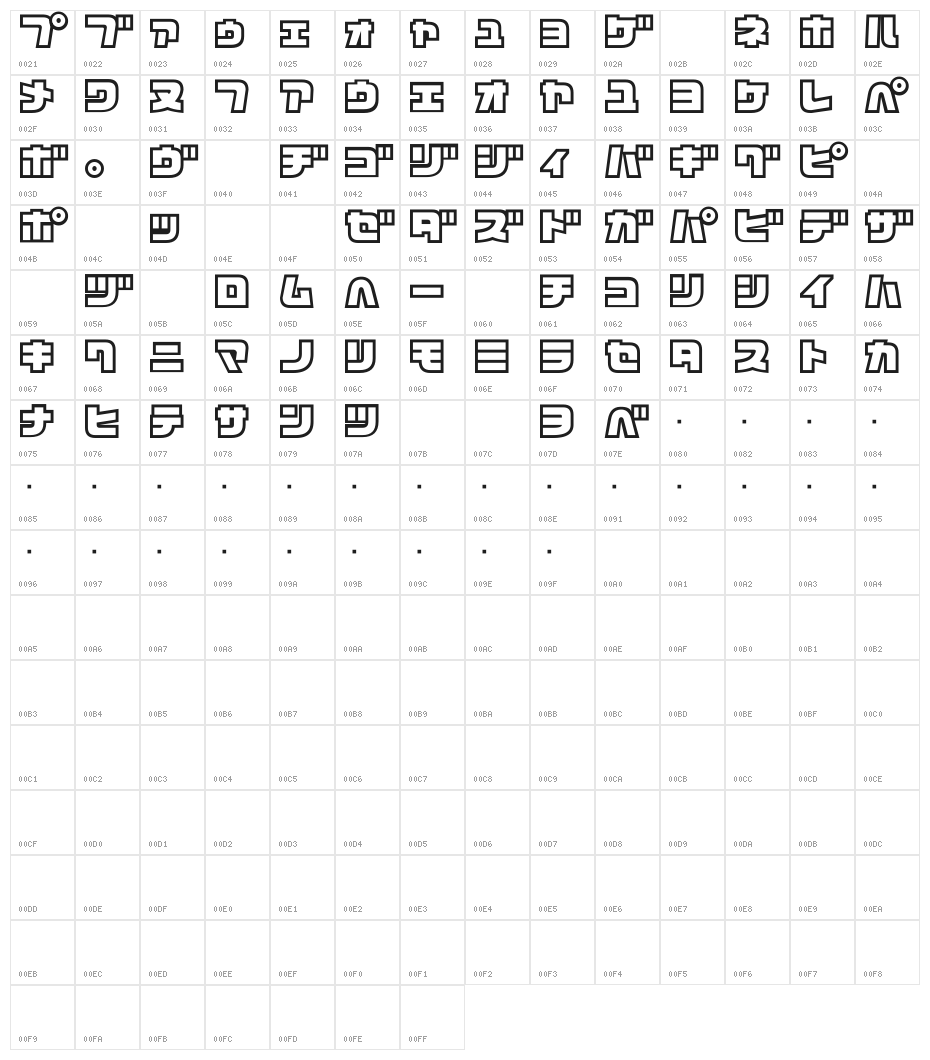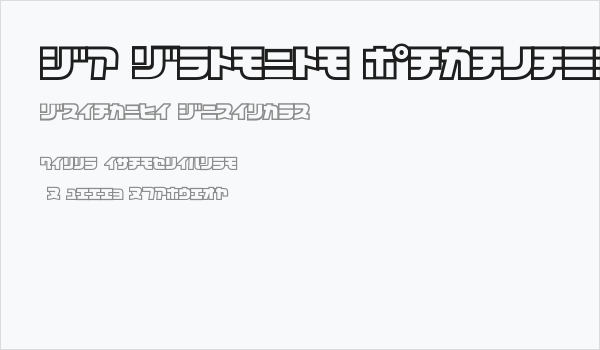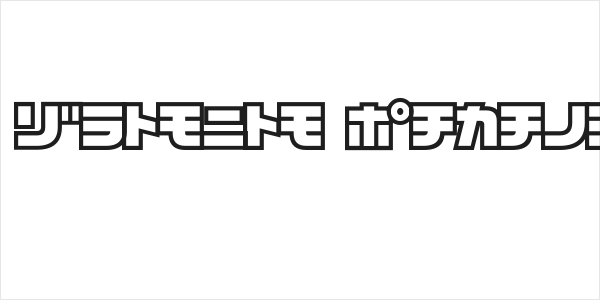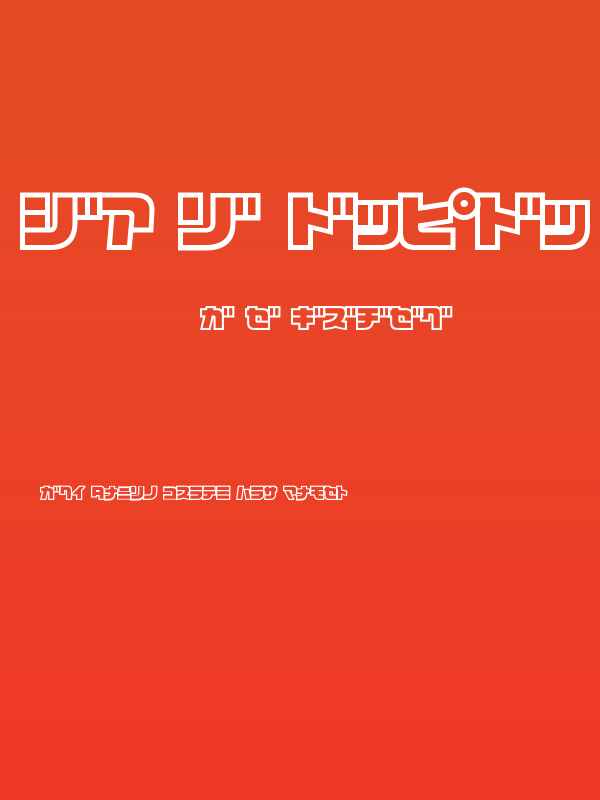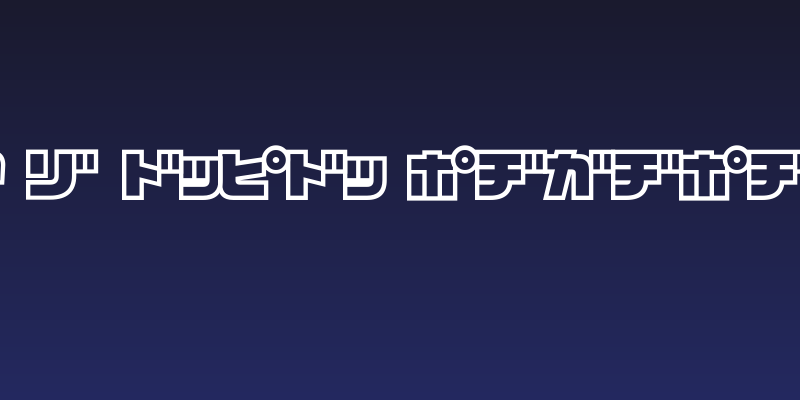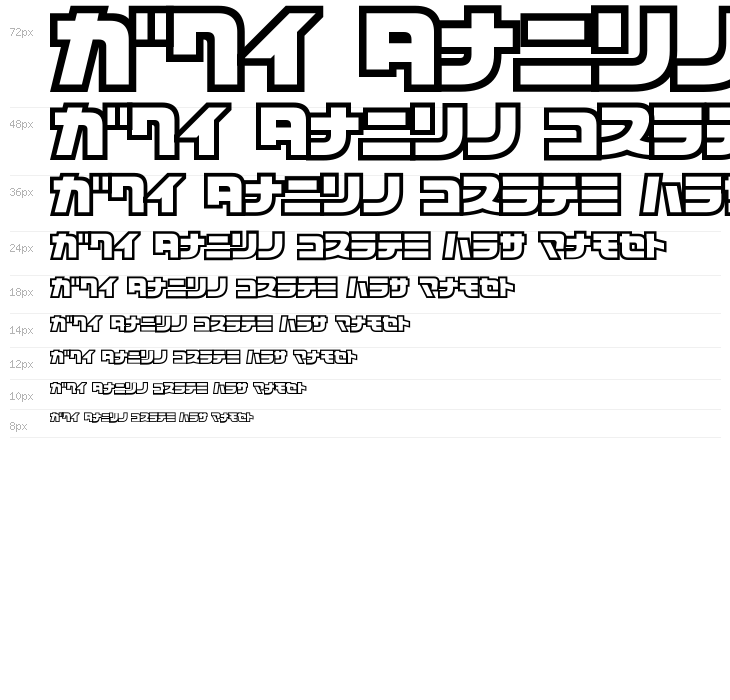
D3 Cosmism Katakana Font
D3 Cosmism Katakana Description
This font features a bold, geometric style with a strong emphasis on clean lines and sharp angles. The characters are outlined, giving them a distinct, futuristic appearance. The design is reminiscent of digital or sci-fi themes, with a modern twist that makes it stand out. The uniformity in stroke width across characters provides a cohesive look, while the angular forms add a dynamic and energetic feel. The font's structure is both robust and balanced, making it suitable for attention-grabbing headlines or titles.
| Proposed Projects | Ideal for sci-fi themed projects, digital art, video game titles, or any design requiring a modern, tech-inspired aesthetic. |